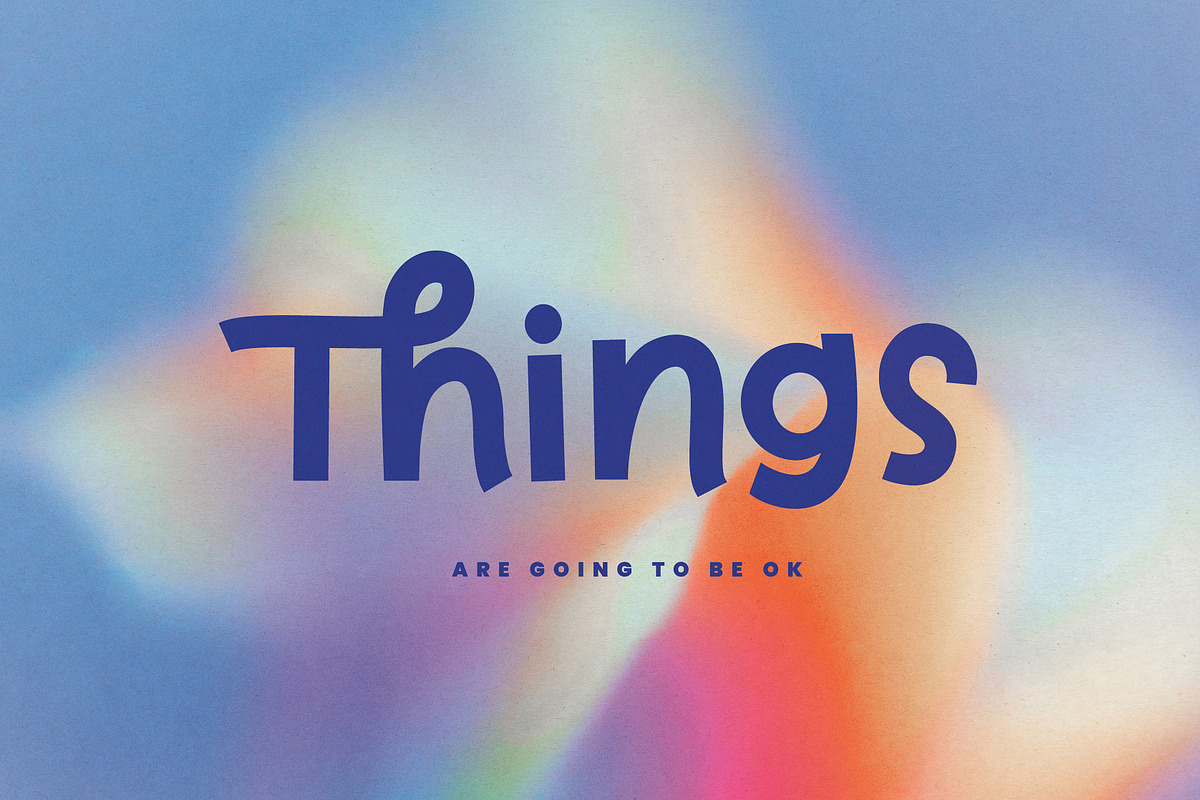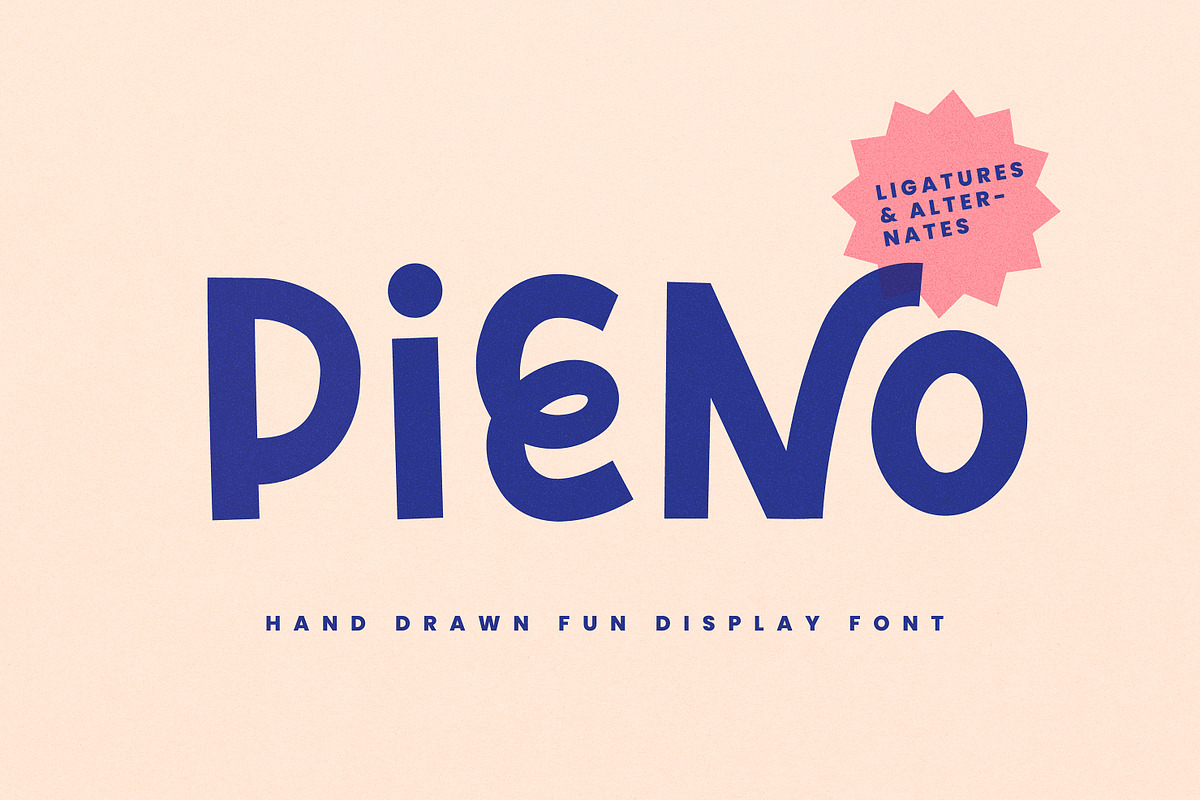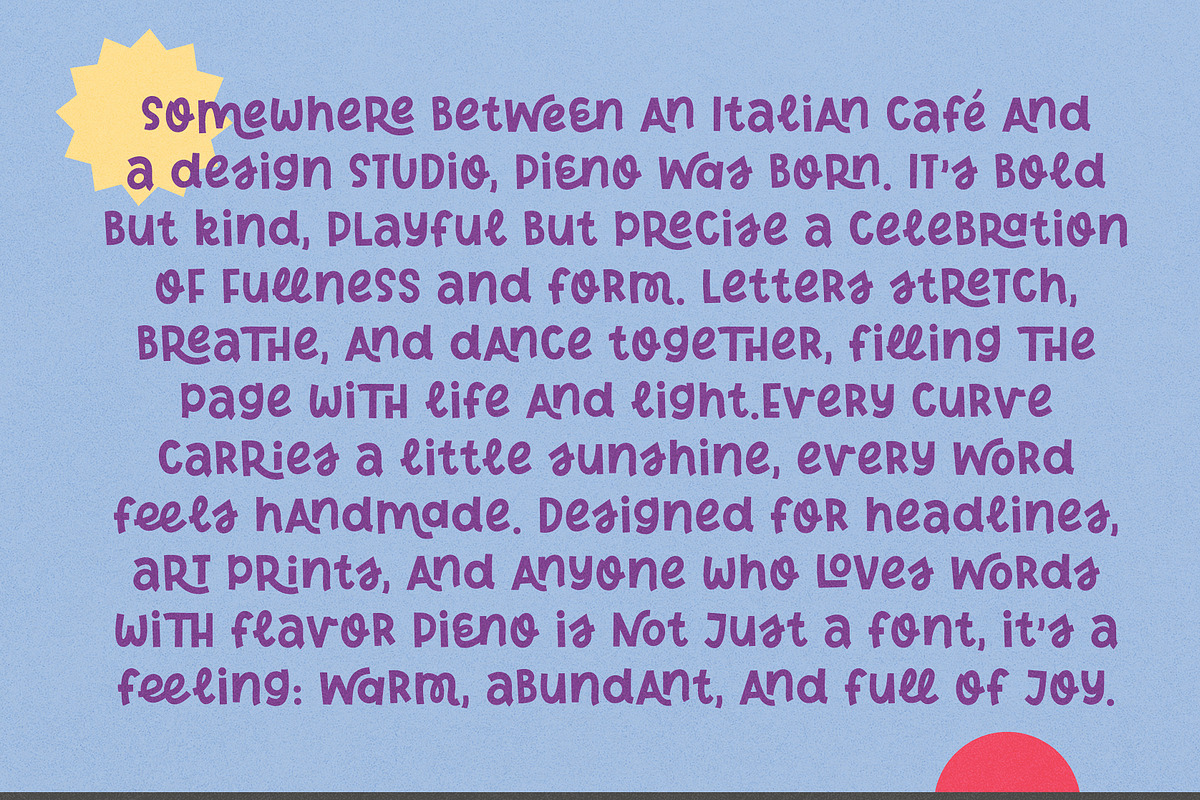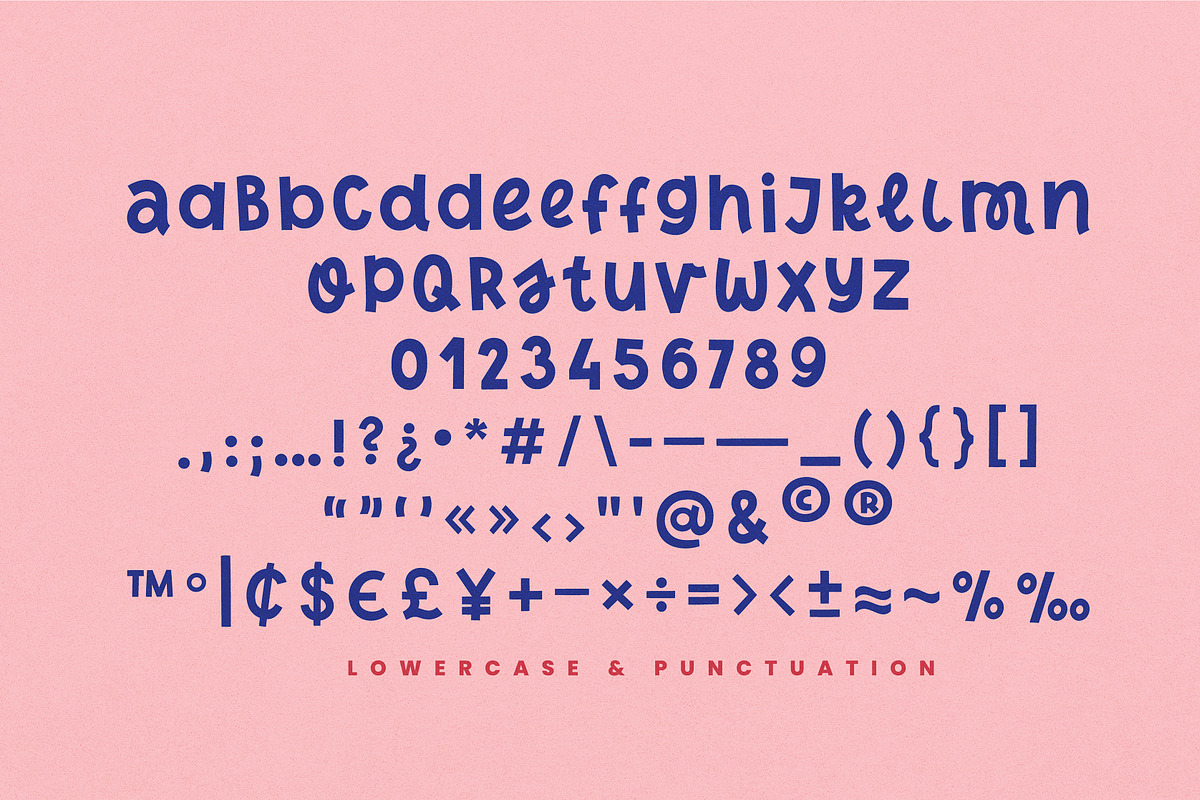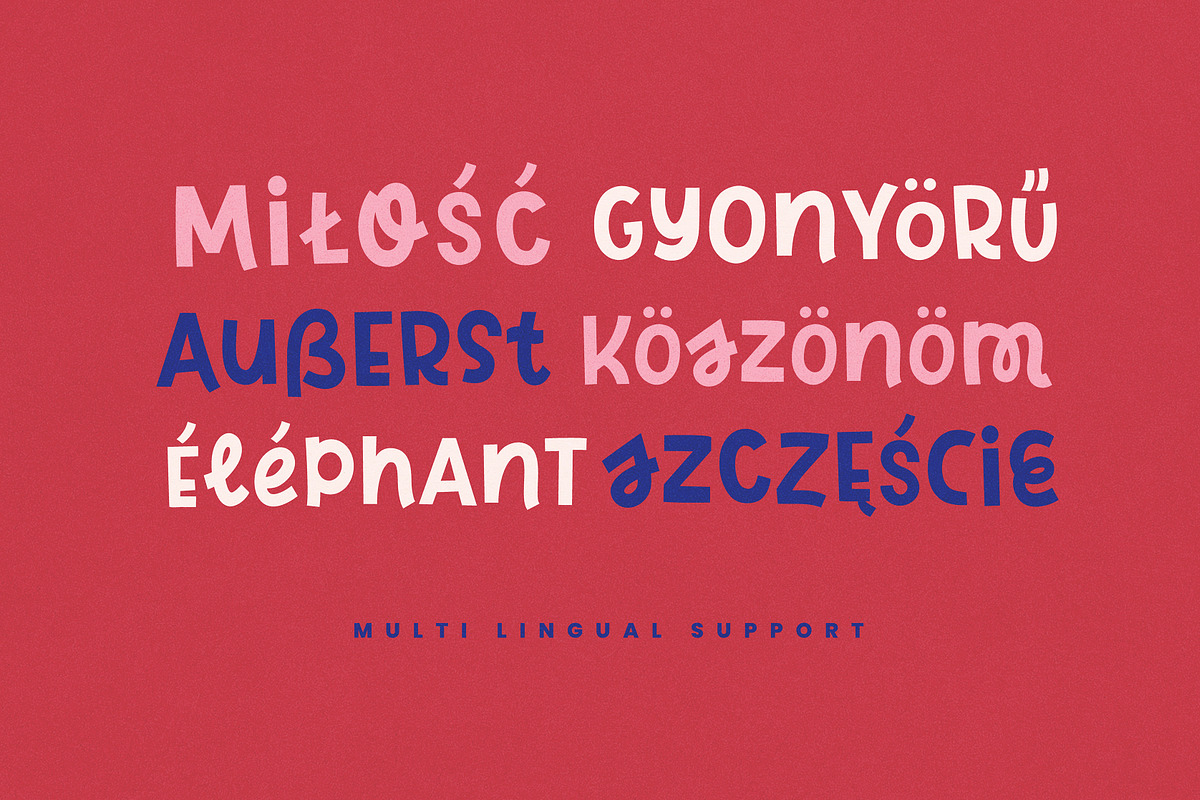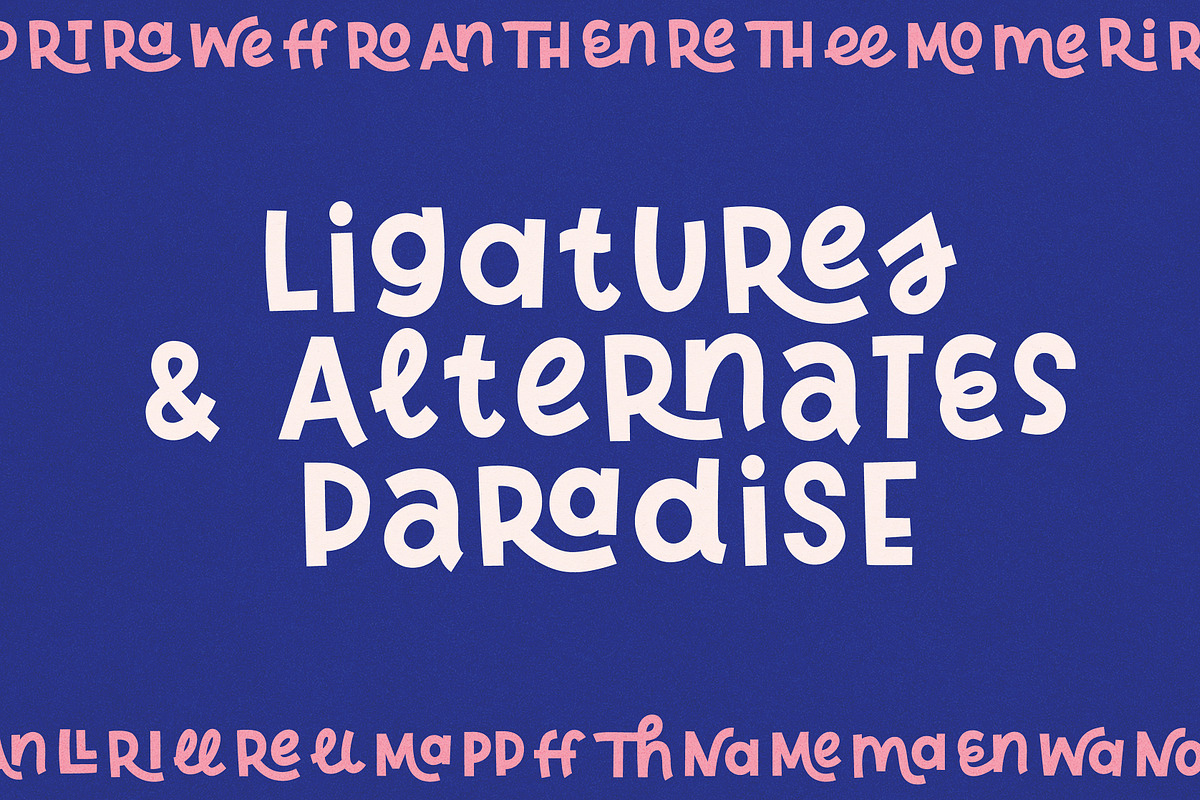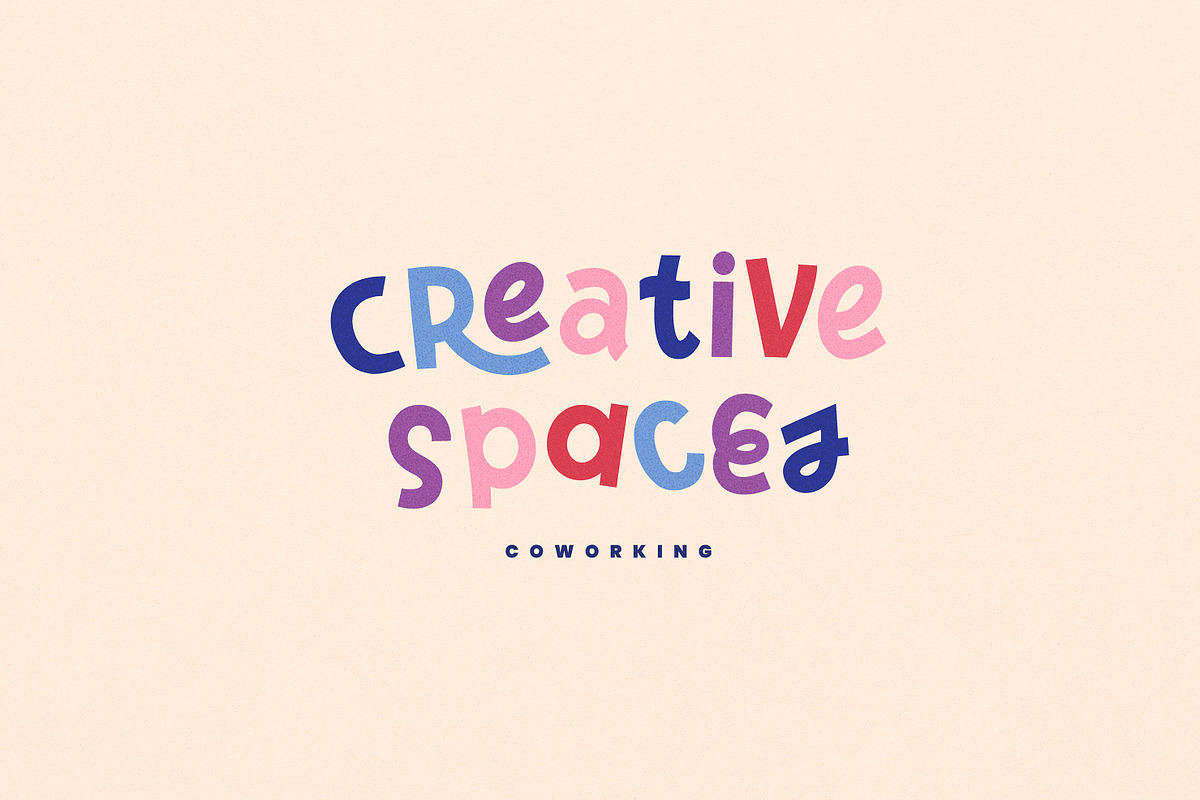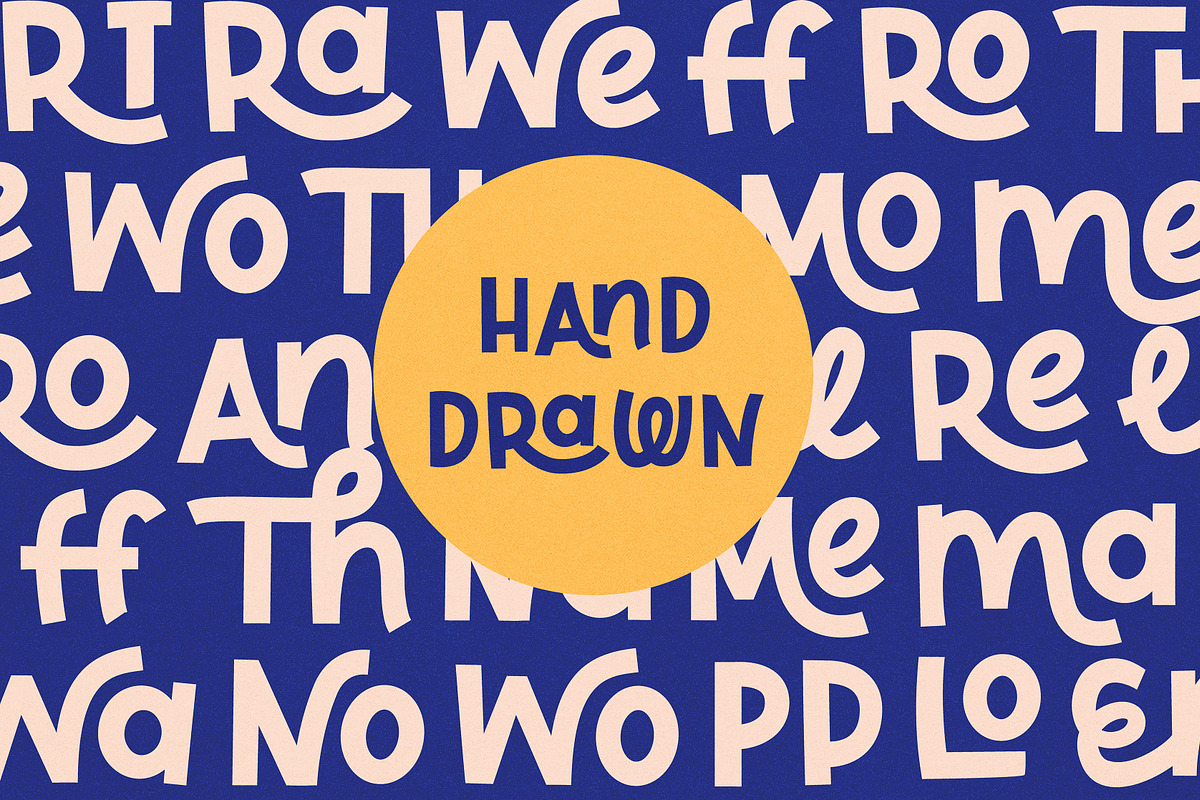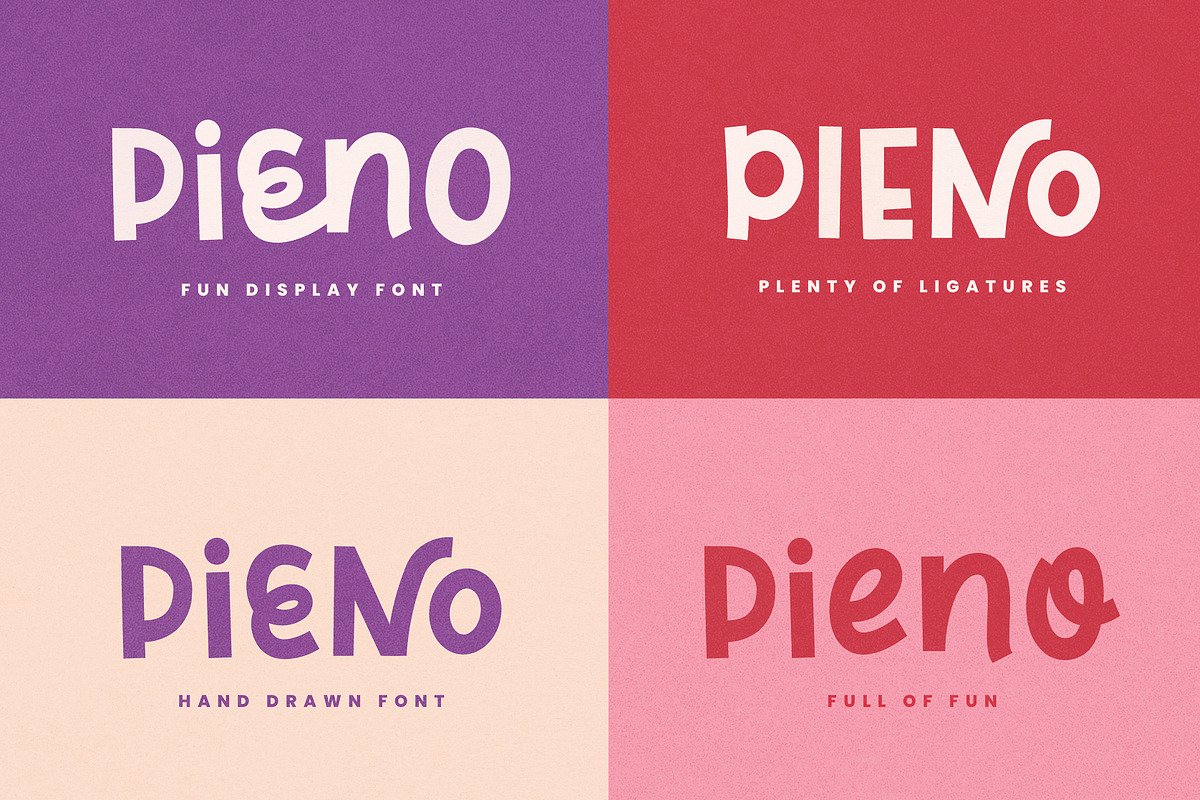
Pieno | Bold Playful Display Font
Meet Pieno — A funky, full-of-life display font — hand-drawn with a modern retro twist. Playful yet precise, Pieno fills your projects with warmth, rhythm, and character. Perfect for logos, posters, packaging, and branding that needs warmth, charm, and a handcrafted soul.
Designed and spaced with love and care to make using it a breeze.
WHAT YOU WILL GET Pieno is packed with lovely features:
- smooth, hand-drawn letterforms with organic rhythm
- bold shapes perfect for headlines and display use
- multilingual support with accented characters for international designers
- beautifully balanced kerning and spacing for effortless composition
- easily accesible stylistic alternates in a different font file for easy of use in every software